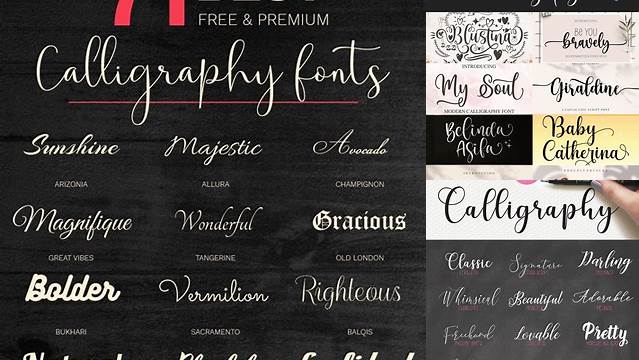
Top 10 Stunning Calligraphy Fonts For Designers
Hey guys! Ready to dive into the beautiful world of calligraphy? Choosing the right font can make or break your design, so let's explore the top 10 calligraphy fonts that can add elegance and flair to your projects. Whether youâre designing wedding invitations, logos, or digital art, these fonts are sure to impress.
1. Introduction to Calligraphy Fonts
Calligraphy fonts are designed to mimic the fluid and artistic strokes of hand-lettered calligraphy. These fonts can range from elegant and formal to playful and whimsical, offering a wide variety of styles to suit different design needs. Understanding the nuances of calligraphy fonts can help you select the perfect typeface for your project, ensuring it conveys the right message and aesthetic. When selecting a calligraphy font, consider the overall tone you want to achieve, the readability of the font, and how well it pairs with other design elements. A well-chosen calligraphy font can elevate your design and add a touch of sophistication and personality.
2. Importance of Choosing the Right Calligraphy Font
Choosing the right calligraphy font is crucial because it significantly impacts the visual appeal and overall message of your design. The font sets the tone and communicates the style and personality you want to convey. A poorly chosen font can detract from your design, making it appear unprofessional or unappealing. The right font, however, enhances the visual impact, making your design more engaging and memorable. Therefore, carefully consider the context, audience, and purpose of your design when selecting a calligraphy font. Ensure the font is legible and complements the other design elements to create a cohesive and effective final product. You want to make sure that choosing the right calligraphy font can really take your design to the next level.
3. Factors to Consider When Selecting a Calligraphy Font
When selecting a calligraphy font, several factors should be taken into account to ensure it aligns with your design goals. First, consider the readability of the font, especially for body text or smaller applications. A font that is too intricate or decorative may be difficult to read, defeating its purpose. Second, think about the tone and style of the font. Does it convey elegance, playfulness, or sophistication? Choose a font that matches the overall aesthetic of your project. Third, evaluate the font's versatility. Can it be used in various sizes and contexts without losing its impact? Finally, consider the font's compatibility with other fonts and design elements. A harmonious combination of fonts can enhance the visual appeal of your design, while a clash can create a disjointed effect. So, really think about all these things when you're picking out a font, guys!
4. Popular Calligraphy Font Styles
There are several popular calligraphy font styles, each with its unique characteristics and applications. Elegant scripts are characterized by flowing strokes and delicate details, making them ideal for wedding invitations and formal events. Modern calligraphy fonts often incorporate contemporary design elements, offering a fresh and stylish look for branding and digital projects. Traditional calligraphy fonts emulate classic handwriting styles, providing a timeless and sophisticated feel for invitations and announcements. Brush script fonts mimic the look of brush lettering, adding a personal and artistic touch to logos and posters. Understanding these different styles can help you choose the perfect calligraphy font to achieve the desired aesthetic for your design.
5. Calligraphy Fonts for Wedding Invitations
For wedding invitations, calligraphy fonts add a touch of romance and sophistication. Elegant script fonts like Adelia, Belinda, and Aphrodite are popular choices, offering graceful curves and intricate details. These fonts create a sense of timeless beauty and are perfect for conveying the specialness of the occasion. When using calligraphy fonts for wedding invitations, ensure the font is legible and complements the overall design. Pair the calligraphy font with a simple sans-serif font for the body text to maintain readability. Consider using the calligraphy font for headings, names, and key details to create a visually stunning and memorable invitation. Choosing the right calligraphy fonts for wedding invitations can set the tone for the entire event, so select carefully!
6. Best Calligraphy Fonts for Logos
When designing a logo, a calligraphy font can add a unique and personal touch to your brand identity. Modern calligraphy fonts like Selima and Variane Script offer a contemporary and stylish look, perfect for brands that want to convey creativity and innovation. Brush script fonts such as āĻŋāϏā§āĻāĻžāϰ and Shorelines Script provide a handmade feel, ideal for brands that value authenticity and craftsmanship. When using calligraphy fonts for logos, ensure the font is legible and scalable. The logo should be easily recognizable in both small and large sizes. Consider the overall tone and message of your brand when selecting a calligraphy font, and choose one that aligns with your brand values and aesthetic. The best calligraphy fonts for logos are ones that are both visually appealing and highly functional.
7. Top 10 Calligraphy Fonts: Our Picks
Okay, let's get to the good stuff! Here are our top 10 calligraphy fonts that are sure to make your designs pop:
- Brush Script MT: Classic and versatile, perfect for a wide range of projects.
- Kustler Script: A bold and playful brush script that adds a touch of fun.
- Belinda: Elegant and refined, ideal for wedding invitations and formal designs.
- Adelia: A delicate and romantic script that exudes sophistication.
- Aphrodite: A graceful and flowing font that adds a touch of luxury.
- Selima: Modern and stylish, perfect for contemporary branding.
- Variane Script: A clean and elegant script that is easy to read.
- Shorelines Script: A casual and friendly script that adds a personal touch.
- ** āĻĢāĻā§āĻā§āϰāĻžāĻĢāĻžāϰ:** A unique and artistic script that stands out from the crowd.
- Hello Script: A playful and whimsical script that is perfect for children's designs.
8. Calligraphy Fonts for Digital Art
In the realm of digital art, calligraphy fonts can add a unique and artistic touch to your creations. Whether you're designing social media graphics, website banners, or digital illustrations, a well-chosen calligraphy font can elevate your artwork and make it more engaging. Brush script fonts are particularly popular for digital art, as they mimic the look of hand-painted lettering and add a personal, authentic feel. Experiment with different calligraphy font styles to find the perfect match for your artistic vision. Consider using calligraphy fonts for titles, captions, and decorative elements to create a visually stunning and cohesive piece of digital art. Calligraphy fonts for digital art are a great way to express creativity and add a touch of elegance to your work.
9. Free vs. Premium Calligraphy Fonts
When it comes to calligraphy fonts, you have the option of choosing between free and premium fonts. Free calligraphy fonts can be a great option for personal projects or when you're on a tight budget. However, they may have limited features or lower quality compared to premium fonts. Premium calligraphy fonts, on the other hand, typically offer a wider range of features, higher quality designs, and commercial licenses. They are often created by professional designers and are optimized for various design applications. Consider your project requirements and budget when deciding between free and premium calligraphy fonts. If you need a high-quality font with specific features for a commercial project, investing in a premium font may be worth the cost.
10. How to Pair Calligraphy Fonts with Other Fonts
Pairing calligraphy fonts with other fonts can be a bit tricky, but when done right, it can create a visually stunning and balanced design. The key is to choose fonts that complement each other without competing for attention. A general rule of thumb is to pair a calligraphy font with a simple sans-serif font. The clean lines of the sans-serif font provide a nice contrast to the ornate details of the calligraphy font, making the design more readable and visually appealing. Avoid pairing multiple decorative fonts together, as this can create a cluttered and overwhelming look. Experiment with different font combinations to find the perfect balance for your design. How to pair calligraphy fonts with other fonts is an art, so don't be afraid to try new things!
11. Calligraphy Fonts in Branding
Using calligraphy fonts in branding can add a touch of elegance, sophistication, and personality to your brand identity. A well-chosen calligraphy font can help your brand stand out from the competition and create a memorable impression on your target audience. When using calligraphy fonts in branding, consider your brand's values, personality, and target audience. Choose a font that aligns with your brand's overall message and aesthetic. A calligraphy font can be used for your logo, website, marketing materials, and other branding elements to create a cohesive and consistent brand image. Calligraphy fonts in branding can be a powerful tool for building brand recognition and establishing a strong brand identity.
12. Calligraphy Fonts for T-Shirt Designs
Calligraphy fonts can add a stylish and personal touch to t-shirt designs. Whether you're creating custom t-shirts for your business, event, or personal use, a calligraphy font can help your design stand out. Choose a font that is legible and scalable, as the design will need to be printed on fabric. Consider the overall style and message of your t-shirt design when selecting a calligraphy font. A brush script font can add a casual and artistic feel, while an elegant script font can add a touch of sophistication. Experiment with different font colors and sizes to create a visually appealing and eye-catching t-shirt design. Calligraphy fonts for T-shirt designs are a great way to express your creativity and make a statement.
13. Trends in Calligraphy Fonts
Like any design trend, calligraphy fonts are constantly evolving. Staying up-to-date with the latest trends can help you create designs that are fresh, modern, and relevant. Some current trends in calligraphy fonts include bold and brush lettering styles, hand-drawn fonts, and fonts with unique and unconventional letterforms. Experiment with these trends to create designs that are both visually appealing and on-trend. Consider incorporating calligraphy fonts into your designs in unexpected ways to create a unique and memorable look. Trends in Calligraphy Fonts are always changing, so keep an eye out for what's new and exciting!
14. Where to Find High-Quality Calligraphy Fonts
Finding high-quality calligraphy fonts is essential for creating professional and visually appealing designs. There are several online resources where you can find a wide selection of calligraphy fonts, including font marketplaces, design websites, and independent font foundries. Some popular font marketplaces include MyFonts, Creative Market, and Fontspring. Design websites like Behance and Dribbble often feature free and premium calligraphy fonts created by talented designers. Independent font foundries offer unique and exclusive calligraphy fonts that you won't find anywhere else. Do your research and choose fonts from reputable sources to ensure you're getting high-quality designs. Where to find high-quality calligraphy fonts is a question many designers ask, and these resources are a great place to start!
15. Calligraphy Fonts and Readability
One of the most important considerations when choosing a calligraphy font is readability. While calligraphy fonts can add a touch of elegance and personality to your design, they can also be difficult to read if not used properly. Choose a font that is legible and easy to read, especially for body text or smaller applications. Avoid using overly ornate or intricate fonts that may be difficult to decipher. Consider the font size and spacing to ensure the text is clear and readable. Pair the calligraphy font with a simple sans-serif font for body text to improve readability. Calligraphy fonts and readability are key factors to consider when creating effective and visually appealing designs.
16. Using Calligraphy Fonts in Web Design
Calligraphy fonts can add a touch of elegance and sophistication to web design, but it's important to use them sparingly and strategically. Overusing calligraphy fonts can make your website look cluttered and unprofessional. Use calligraphy fonts for headings, titles, and decorative elements to add visual interest and personality. Choose a font that is legible and displays well on different devices and screen sizes. Consider the overall design and layout of your website when incorporating calligraphy fonts. A well-balanced and visually appealing website design can enhance the user experience and create a positive impression. Using Calligraphy Fonts in Web Design requires careful consideration and a keen eye for design.
17. Calligraphy Fonts for Greeting Cards
Calligraphy fonts are a popular choice for greeting cards, as they add a personal and heartfelt touch to your messages. Whether you're creating birthday cards, thank you notes, or holiday greetings, a calligraphy font can help you express your sentiments in a beautiful and meaningful way. Choose a font that is appropriate for the occasion and the recipient. An elegant script font is perfect for formal occasions, while a brush script font is ideal for casual greetings. Experiment with different font colors, sizes, and styles to create a unique and personalized greeting card. Calligraphy fonts for greeting cards can make your messages more special and memorable.
18. Calligraphy Fonts in Invitation Design
Calligraphy fonts are a staple in invitation design, adding a touch of elegance and sophistication to your event announcements. Whether you're designing wedding invitations, party invitations, or corporate event invitations, a calligraphy font can help you create a visually stunning and memorable design. Choose a font that reflects the style and theme of your event. An elegant script font is perfect for formal events, while a modern calligraphy font is ideal for contemporary gatherings. Consider the overall design and layout of your invitation when incorporating calligraphy fonts. A well-designed invitation can set the tone for your event and create excitement among your guests. Calligraphy fonts in invitation design are a must-have for creating beautiful and memorable invitations.
19. Calligraphy Fonts and Typography
Calligraphy fonts are an important aspect of typography, adding a unique and artistic element to your designs. Typography is the art and technique of arranging type to make written language legible, readable, and appealing. Calligraphy fonts can be used to create visually stunning and engaging typography that captures the attention of your audience. Understanding the principles of typography, such as font pairing, kerning, and leading, is essential for using calligraphy fonts effectively. Experiment with different typographic techniques to create unique and memorable designs. Calligraphy fonts and typography go hand in hand, and mastering both can elevate your design skills to the next level.
20. Calligraphy Fonts for Poster Design
Calligraphy fonts can add a dramatic and eye-catching element to poster designs. Whether you're designing posters for events, advertisements, or art projects, a calligraphy font can help you create a visually striking and memorable design. Choose a font that is legible and readable from a distance. Consider the overall design and layout of your poster when incorporating calligraphy fonts. Use calligraphy fonts for headlines, titles, and key messages to draw attention to your poster. Experiment with different font colors, sizes, and styles to create a unique and impactful poster design. Calligraphy fonts for poster design are a great way to make your message stand out and grab attention.
21. The Art of Hand Lettering vs. Calligraphy Fonts
Understanding the difference between hand lettering and calligraphy fonts is crucial for designers. Hand lettering is the art of drawing letters, creating unique and custom designs. Calligraphy fonts, on the other hand, are digital typefaces that mimic the look of hand-lettered calligraphy. While both can add a personal and artistic touch to your designs, they are created using different techniques. Hand lettering requires skill and practice in drawing letters, while calligraphy fonts are pre-designed typefaces that can be easily used in digital designs. Knowing the difference between the art of hand lettering vs. calligraphy fonts can help you choose the right approach for your design project.
22. Calligraphy Fonts for Social Media Graphics
In the fast-paced world of social media, capturing attention is key. Calligraphy fonts can be a powerful tool for creating visually appealing and engaging social media graphics. Use calligraphy fonts for titles, captions, and decorative elements to add a touch of personality and style to your posts. Choose fonts that are legible and display well on mobile devices. Experiment with different font colors and backgrounds to create eye-catching graphics that stand out in the feed. Calligraphy fonts for social media graphics can help you create a consistent brand image and attract more followers.
23. Beginnerâs Guide to Using Calligraphy Fonts
If you're new to calligraphy fonts, don't worry! It's easy to get started with a little practice and experimentation. Begin by exploring different calligraphy font styles and finding ones that you like. Experiment with font pairings and typographic techniques to create visually appealing designs. Pay attention to readability and ensure your text is clear and easy to read. Use calligraphy fonts sparingly and strategically to add a touch of elegance and personality to your designs. With practice, you'll become more confident in using calligraphy fonts and creating stunning designs. This beginner's guide to using calligraphy fonts is your first step towards mastering this art form.
24. Calligraphy Fonts and Cultural Significance
Calligraphy has a rich cultural history in many parts of the world, particularly in East Asia and the Middle East. Calligraphy fonts often reflect these cultural influences, incorporating traditional styles and techniques. Understanding the cultural significance of calligraphy fonts can add depth and meaning to your designs. Consider using calligraphy fonts that reflect the cultural heritage of your project or brand. Research the history and traditions of calligraphy to gain a deeper appreciation for this art form. Calligraphy fonts and cultural significance can add a unique and authentic touch to your designs.
25. Modernizing Traditional Calligraphy Fonts
While traditional calligraphy fonts are timeless and elegant, they can sometimes feel outdated in modern designs. Modernizing traditional calligraphy fonts involves incorporating contemporary design elements while preserving the classic beauty of the original font. This can be achieved by simplifying the letterforms, adding subtle variations, or experimenting with different font weights and styles. The goal is to create a calligraphy font that is both elegant and modern, appealing to a contemporary audience. Modernizing traditional calligraphy fonts is a great way to breathe new life into classic designs.
26. Common Mistakes to Avoid When Using Calligraphy Fonts
Even experienced designers can make mistakes when using calligraphy fonts. One common mistake is overusing calligraphy fonts, which can make your design look cluttered and overwhelming. Another mistake is choosing fonts that are difficult to read, especially for body text or smaller applications. Failing to consider the overall design and layout of your project can also lead to a disjointed and unprofessional look. Avoid these common mistakes to avoid when using calligraphy fonts by carefully planning your design and choosing fonts that complement each other.
27. The Future of Calligraphy Fonts
The future of calligraphy fonts is bright, with new technologies and design trends constantly pushing the boundaries of what's possible. Expect to see more innovative and experimental calligraphy fonts that incorporate new design techniques and styles. The rise of digital calligraphy and hand lettering is also influencing the development of calligraphy fonts, with designers creating fonts that mimic the look of hand-drawn lettering. As technology evolves, the future of calligraphy fonts is sure to be exciting and full of new possibilities.
28. Calligraphy Fonts for Book Covers
A well-chosen calligraphy font can make a book cover stand out and attract readers. Calligraphy fonts add a touch of elegance and sophistication to book covers, particularly for genres like romance, historical fiction, and literary fiction. Choose a font that reflects the tone and theme of your book. Consider the overall design and layout of your book cover when incorporating calligraphy fonts. A visually appealing book cover can entice readers to pick up your book and learn more about it. Calligraphy fonts for book covers can be a key element in attracting readers and boosting book sales.
29. Mastering the Use of Swashes and Flourishes in Calligraphy Fonts
Swashes and flourishes are decorative elements that extend from the letters in a calligraphy font, adding a touch of elegance and flair. Mastering the use of swashes and flourishes can elevate your calligraphy designs and make them more visually appealing. Use swashes and flourishes sparingly and strategically to avoid overwhelming your design. Consider the overall design and layout of your project when incorporating swashes and flourishes. Experiment with different styles and placements to find what works best for your design. Mastering the use of swashes and flourishes in calligraphy fonts is a skill that takes practice and attention to detail.
30. Creating Your Own Calligraphy Font
For advanced designers, creating your own calligraphy font can be a rewarding and creative endeavor. This involves designing each letterform from scratch, paying attention to the details of stroke weight, letter spacing, and overall style. Creating your own calligraphy font requires a deep understanding of typography and calligraphy principles, as well as technical skills in font design software. The result is a unique and personalized font that reflects your individual style and artistic vision. Creating your own calligraphy font is a challenging but ultimately rewarding experience for designers looking to push their creative boundaries.